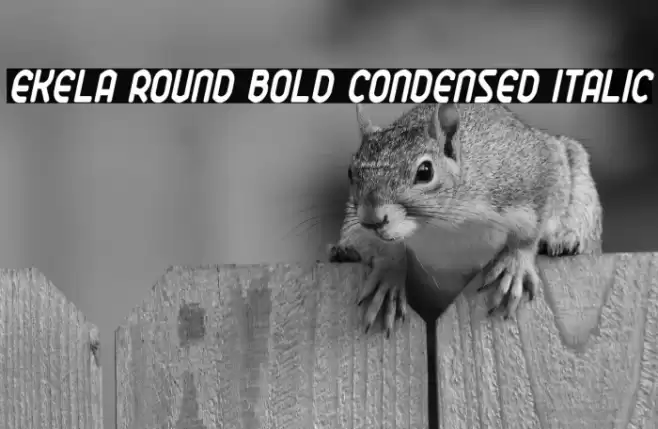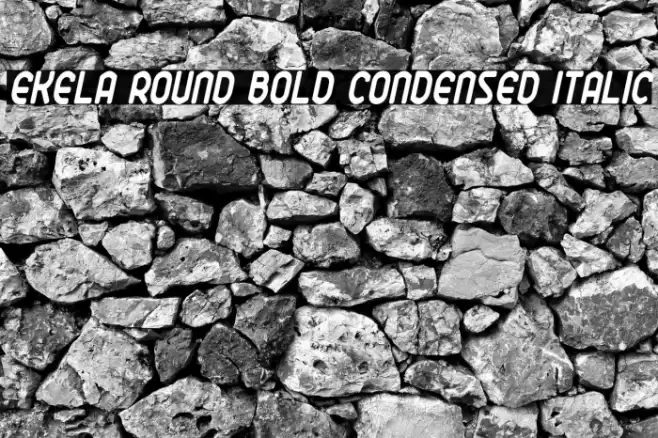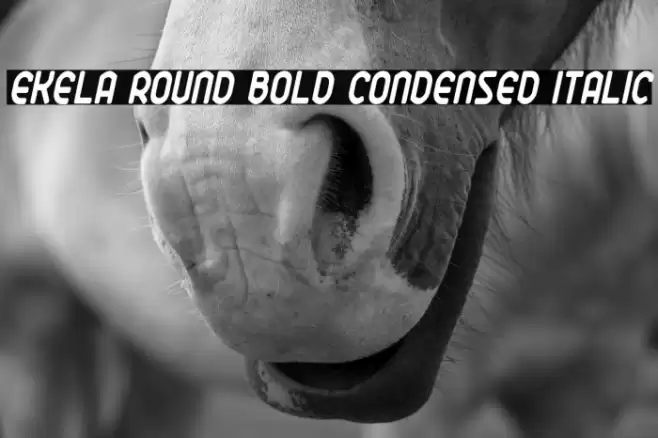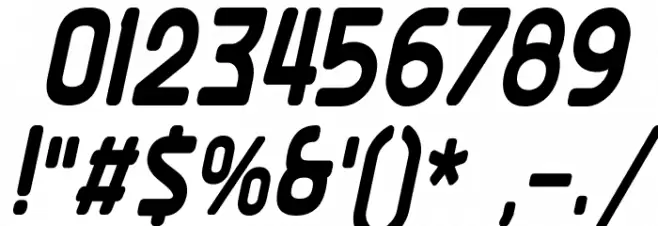
Ekela Round Bold Condensed Italic Font
Ekela Round Bold Condensed Italic Description
This font features a bold and condensed style with a distinct rounded appearance. The italic slant adds a dynamic and modern feel, making it stand out in various design contexts. Each character is crafted with smooth curves and consistent stroke thickness, providing a cohesive and polished look. The uppercase and lowercase letters maintain a uniform width, enhancing readability while preserving a unique aesthetic. The numbers and special characters are designed to match the overall style, ensuring versatility across different applications. This font is ideal for projects that require a contemporary and eye-catching typeface.
A bold, condensed, and rounded italic font with a modern flair from Uncategorized fonts.
- Proposed Projects: Ideal for branding, advertising, posters, and digital media where a bold statement is needed.